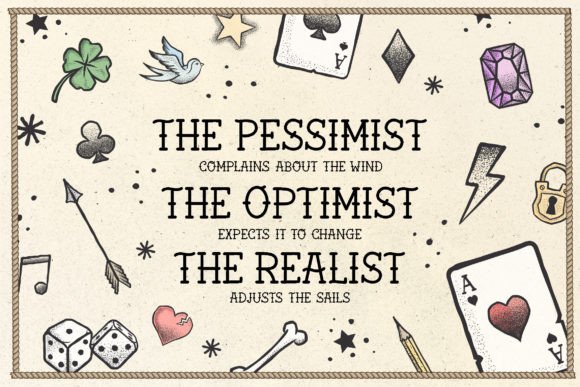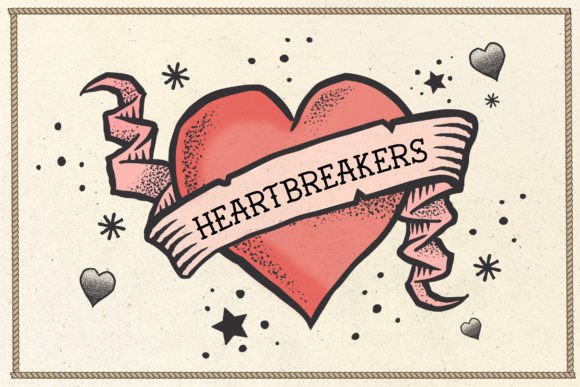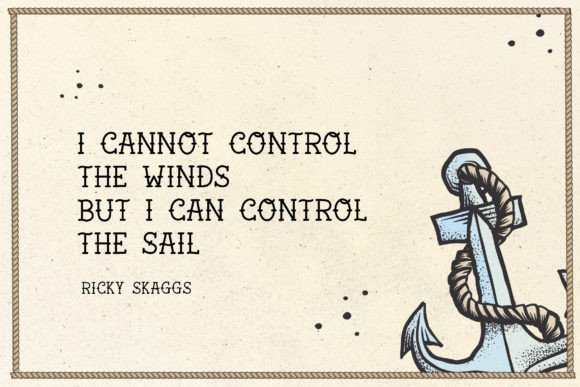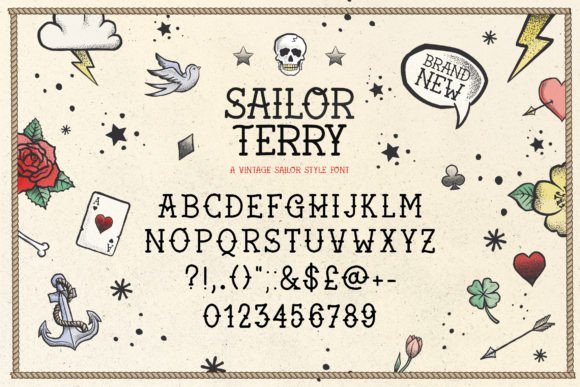
Introduction to Sailor Terry Font
Have you ever stared at a blank canvas, trying to bring your creative vision to life, only to be met with a sea of uncertainty? That’s exactly where I was when I discovered the enchanting Sailor Terry Font. Its whimsical charm instantly sparked an idea, and I knew I had to dive deeper.
As a designer, finding the perfect font can be a daunting task. But, with the Sailor Terry Font, you can add a touch of elegance and sophistication to your designs. Whether you’re working on a project with a transparent background or need a design resource that exudes high quality, this font is sure to impress.
Sailor Terry Font
- High-quality, hand-drawn design suitable for creative projects
- Designed with a unique, whimsical style that adds a touch of personality to any design
Honest Review: Sailor Terry Font
I recently stumbled upon the Sailor Terry Font while searching for a unique design resource for a creative project. As a designer, I appreciate high-quality fonts that can add a touch of personality to a design. Sailor Terry Font definitely delivers.
What works well: ✨ The font has a beautiful, distressed look that’s perfect for vintage-inspired designs. The transparent background allows for seamless integration with any background image or color. The free download is also a major plus, making it an excellent resource for designers on a budget.
- Distressed look suitable for vintage-inspired designs
Limitations: ⚠️ The font is only available in a few weights, which may limit its versatility in certain designs. Additionally, some users may find the distressed look overwhelming in certain contexts.
Overall impression: Sailor Terry Font is a solid addition to any designer’s toolkit. Its unique look and free download make it an excellent resource for creative projects. While it may have some limitations, the benefits far outweigh the drawbacks.
Sailor Terry Font
The Sailor Terry Font is a unique and versatile design resource perfect for creative projects. With its transparent background and high quality, it’s an excellent addition to any design project.
Tips for Getting the Most Out of it
Experiment with different font sizes, colors, and styles to get the most out of the Sailor Terry Font. You can also use it in combination with other design elements to create a unique look.
The Sailor Terry Font is perfect for creative projects such as graphic design, digital art, and typography. It’s also great for use in logos, branding, and marketing materials.